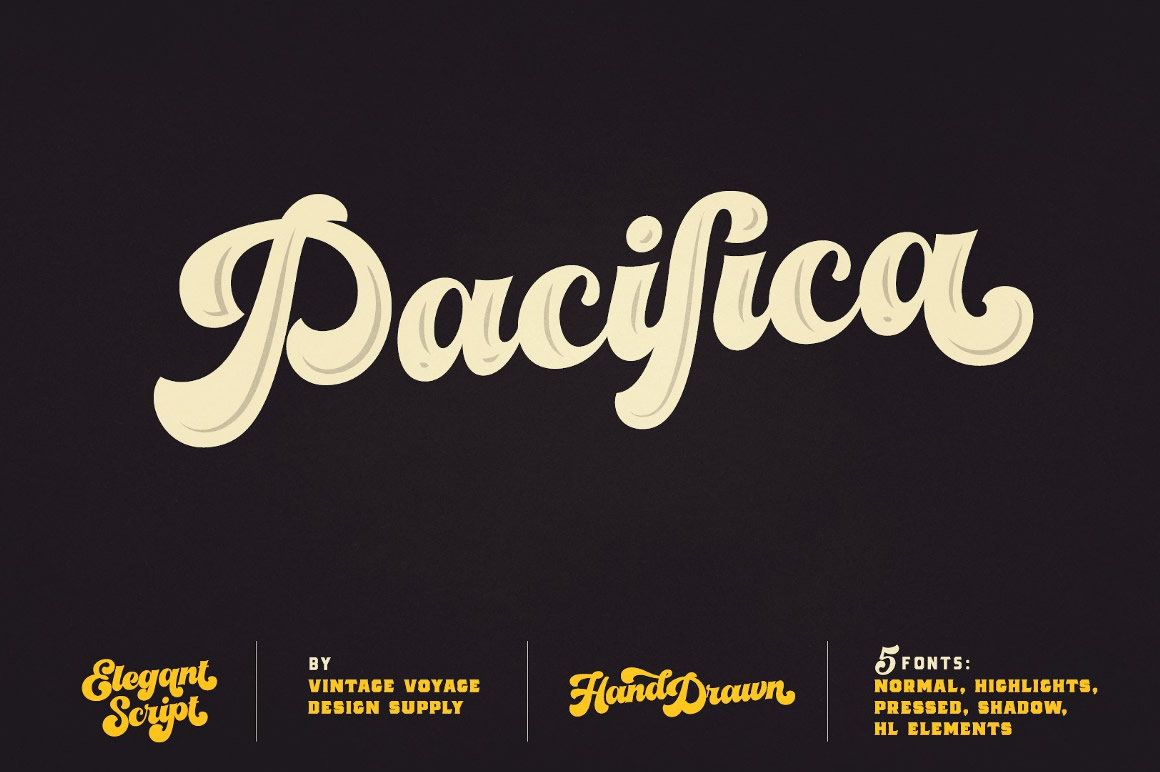
Elegant Bold Fonts - An Essential Tool For Modern Designers
In the increasingly competitive world of graphic design, having the right font can make a huge difference. As a designer, you want to make sure that your projects stand out from the crowd, and that means choosing the right font. Elegant bold fonts are an essential tool in any designer's arsenal, and there are a vast range of beautiful options from which to choose.
The Benefits of Using Elegant Bold Fonts
Elegant bold fonts are a great way to add a touch of style to your designs. Bold fonts are perfect for making a statement, and can be used to draw attention to important elements of your work. They can also be used to create a sense of drama and emotion. When used in combination with other fonts, they can also create a unique and sophisticated look.
Elegant bold fonts also offer a level of flexibility that is not found in other font types. They can be used for a variety of purposes, from traditional print design to modern web design. They can be scaled to fit any size of project, and can be used in both large and small projects. This makes them an ideal choice for any designer who needs to create a project with a bold and eye-catching look.
How to Choose the Right Elegant Bold Font
Choosing the right elegant bold font can be a daunting task, but it doesn't have to be. The key to finding the perfect font is to think about how the font will be used. Consider the size and the purpose of the project, and then look for fonts that complement these elements. It is also important to think about the overall tone or feeling that the font should convey.
Once you have a few fonts in mind, you can start to look at the individual elements of each font. Pay close attention to the details, such as the shape of the letters and the spacing between them. You can also look at the weight and style of the font. By paying attention to these small details, you can ensure that you choose a font that will create the perfect look for your project.
Finding the Perfect Elegant Bold Font
Finding the perfect elegant bold font for your project doesn't have to be difficult. With the right research and careful consideration, you can find the perfect font for any design project. Take the time to explore the many options available, and you'll be sure to find the perfect font that will bring your project to life.